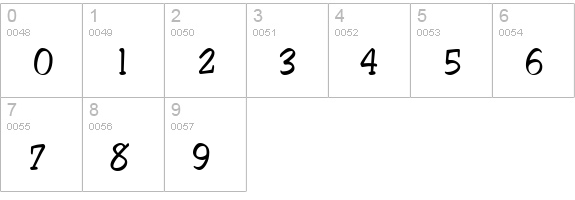
Disney Print Font Details
Disney Print font is a whimsical and charming typeface that captures the magic of classic Disney storytelling. With its playful curves and friendly appearance, this font is perfect for adding a touch of nostalgia to your projects. Whether you're creating invitations, greeting cards, or posters, Disney Print font will bring a sense of fun and adventure to your designs. And the best part? Disney Print font is available for free download at FontsMarket.com. You can easily access this delightful font and start incorporating its enchanting style into your creative endeavors. Embrace the spirit of Disney with Disney Print font and let your imagination run wild!